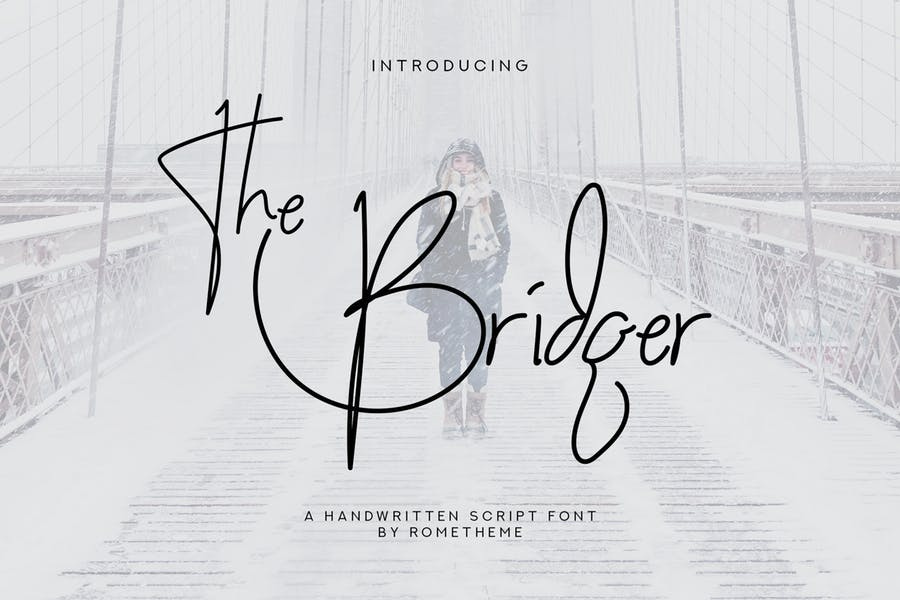
The Bridger Script Font
The Bridger Script Font is perfect for connection-focused branding, relationship-building communications, bridge construction companies, community networking services, diplomatic correspondence, cross-cultural partnerships, unifying event materials, and harmonious advertising campaigns. This connecting typeface works beautifully in both digital applications and print media where bridge-building and connection facilitation are essential design elements.
What makes The Bridger Script Font so exciting is its graceful interpretation of connection and bridge-building through flowing letterforms that seem designed to span divides with the same elegant strength and unifying purpose that characterizes the most successful bridges and meaningful connections. The font features connecting characters with bridge-like proportions, spanning curves, and unifying details that communicate relationship building, diplomatic skill, and the essential ability to bring together different perspectives and communities through shared understanding. Its harmonious personality and diplomatic heritage make it ideal for organizations seeking to establish connections while appealing to audiences who value unity, collaboration, and the power of building bridges across differences.
The Bridger Script Font family includes multiple weight variations with different connection intensities, along with flowing alternates and bridge-inspired ornamental elements. Each style maintains the typeface's connecting character while offering comprehensive character sets including unifying numerals, diplomatic punctuation marks, and special symbols designed to enhance relationship communications and bridge-building branding efforts across various harmonious contexts.
This extraordinary typeface represents the perfect fusion of connection facilitation and contemporary typography for diplomatic and community industries. Whether you're developing community organization identities, creating cross-cultural partnership materials, or designing unity celebration campaigns, The Bridger Script Font Free Download provides the connecting authenticity and versatility needed to bring together diverse audiences. The font's bridge-building appeal makes it particularly effective for community centers, diplomatic organizations, interfaith groups, and businesses specializing in connecting people, communities, and cultures through shared values and mutual understanding.
The carefully crafted connecting details and optimized bridge-building performance in The Bridger Script Font ensure both diplomatic authenticity and clear communication across all unifying applications. Its harmonious presence makes it perfect for connection branding, relationship marketing materials, and bridge-building communications where its full connecting character can create lasting unity and establish immediate association with diplomacy, harmony, and the essential skill of building bridges that connect people across differences and create stronger communities.